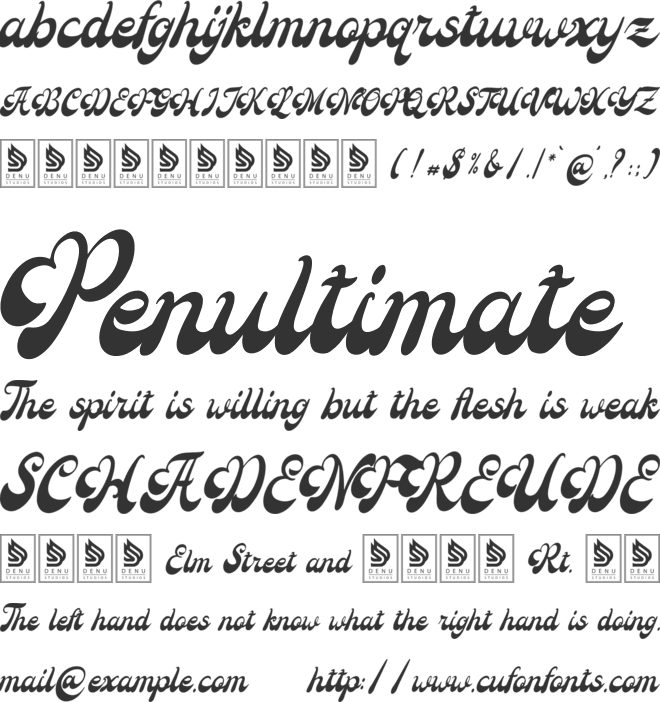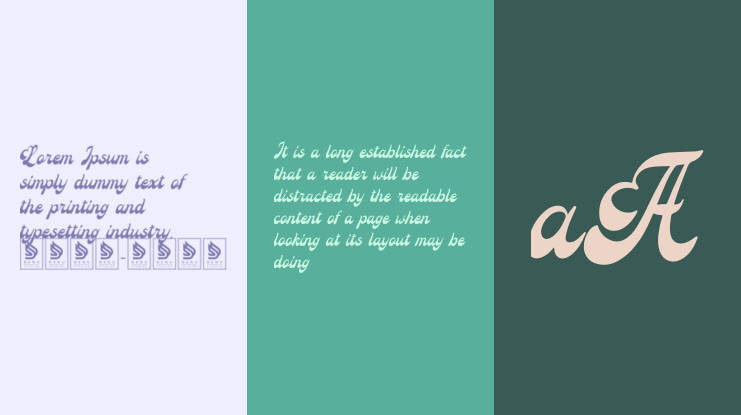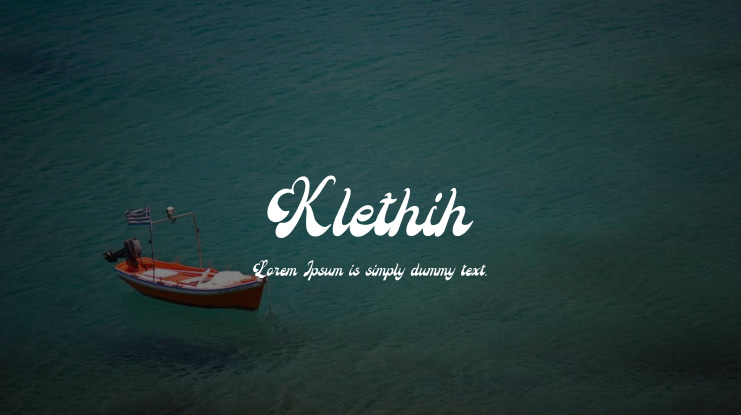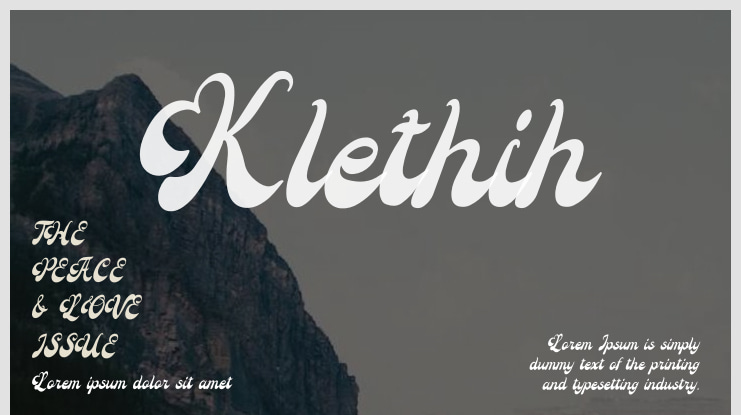
Klethih Retro Script Font is the perfect choice for a variety of projects including:
- Logos - Branding projects - Homeware designs - Product packaging - Mugs - Quotes - Posters - Shopping bags - T-shirts - Book covers - Name cards - Invitation and greeting cards - Labels - Photography - Watermarks - Special events
In fact, it’s suitable for any other creative project that calls for a Retro Script Font aesthetic.